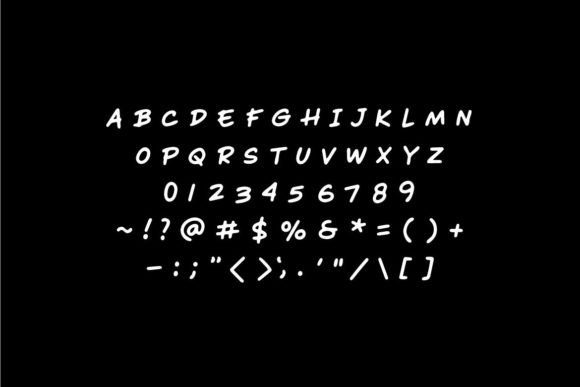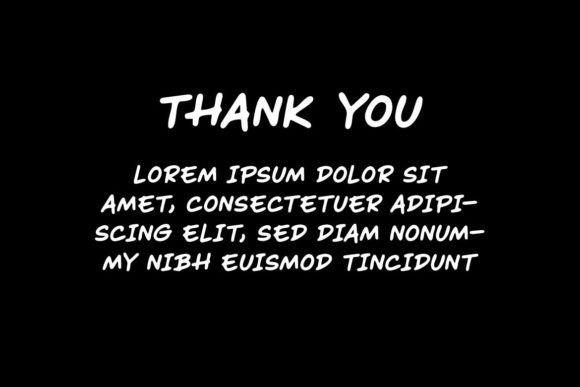
The Blackdog Font: A Unique Handwriting Style for Creative Projects
I’ll never forget the time I was working on a children’s book project, and I just couldn’t find the right font to bring the story to life. The client wanted something playful, yet elegant, and I was determined to deliver. That’s when I stumbled upon the Blackdog font, a display font with capital letters that has a beautiful handwriting style. In this article, I’ll share my experience with Blackdog, its features, and how to use it in various design platforms.
An Honest Review of Blackdog Font
So, what do I love about Blackdog? Here are a few things:
- ✨ Unique handwriting style that adds a personal touch to any project
- ✅ Capital letters only, making it perfect for titles, headings, and emphasis
- 💫 Highly legible, even at smaller sizes
- 🎨 Versatile and can be used in a variety of projects, from children’s books to posters and social media content
However, there are a few quirks to consider:
- 🤔 Limited character set, which may not be suitable for body text or long paragraphs
- ⚠️ May not work well with certain languages or non-English characters
The Story Behind Blackdog Font
Blackdog font was designed by a talented typographer who’s passionate about creating unique, handwriting-style fonts. The designer wanted to create a font that would bring a personal touch to any project, while also being highly legible and versatile. The result is Blackdog, a beautiful font that’s perfect for creative projects.
| Author | Mightyfire |
| What type of projects is Blackdog suitable for? | Blackdog is perfect for creative projects, such as children’s books, posters, advertisements, social media content, logos, and more. |